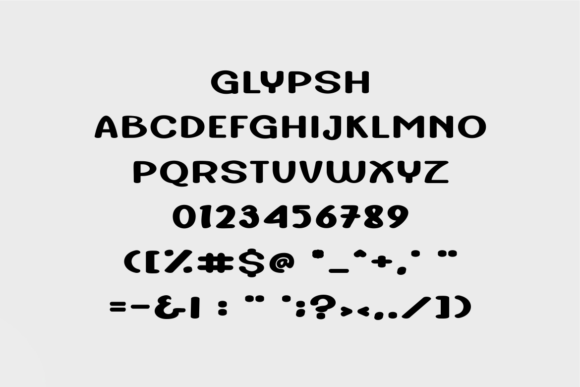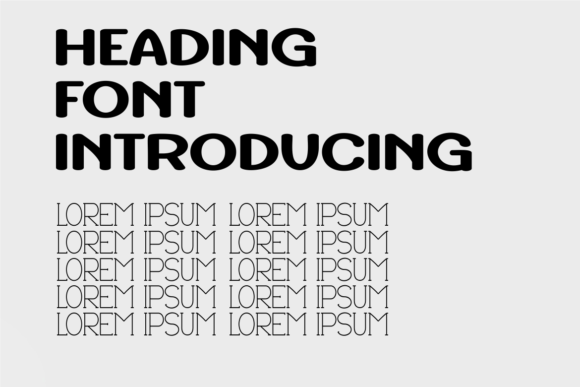
Introducing El Caster Font: Elevate Your Design with a Touch of Elegance
When it comes to setting the tone for a project, product introduction, or company vision, the right font can make all the difference. This is where El Caster Font comes into play – a sophisticated and elegant typeface designed specifically for headings, titles, and short phrases. In this article, we’ll dive into the world of El Caster Font, exploring its unique features, uses, and benefits for designers and crafters.
What is El Caster Font?
El Caster Font is a carefully crafted typeface intended for use at the top of a project, product introduction paper, or any other design element that requires a touch of sophistication. This font is perfect for short phrases, motivational words, company vision and mission statements, and titles – essentially, any text that needs to make a strong first impression.
Characteristics of El Caster Font
So, what sets El Caster Font apart from other typefaces? Here are a few key characteristics:
- Elegant and Sophisticated: El Caster Font boasts a sleek and refined design, perfect for creating a luxurious feel in your designs.
- Versatile: This font is suitable for a wide range of design applications, from corporate branding to personal projects.
- High-Impact: With its bold and eye-catching design, El Caster Font is guaranteed to grab attention and leave a lasting impression.
Using El Caster Font in Your Designs
Now that we’ve covered the basics of El Caster Font, let’s explore some creative ways to use it in your designs:
1. Company Vision and Mission Statements
El Caster Font is perfect for showcasing your company’s vision and mission statements. Its elegant design and bold presence make it an excellent choice for conveying your brand’s values and goals.
2. Product Introduction Papers
When introducing a new product, you want to make a strong first impression. El Caster Font can help you achieve this with its sophisticated and high-impact design.
3. Motivational Quotes and Taglines
Add a touch of inspiration to your designs with El Caster Font. This font is ideal for showcasing motivational quotes, taglines, or any other short phrase that needs to make an impact.
Tips for Getting the Most Out of El Caster Font
To get the most out of El Caster Font, here are a few tips to keep in mind:
- Use it sparingly: El Caster Font is designed for short phrases and headings, so use it sparingly to maximize its impact.
- Experiment with colors: Try pairing El Caster Font with different colors to create a unique and eye-catching design.
- Mix and match: Combine El Caster Font with other fonts to create a visually appealing contrast.
In conclusion, El Caster Font is a powerful tool for designers and crafters looking to elevate their designs with a touch of elegance. With its sophisticated design, versatility, and high-impact presence, this font is perfect for a wide range of applications. So why not get creative and use El Caster Font to create something outstanding?
Whether you’re a seasoned designer or just starting out, El Caster Font is an excellent addition to your typography toolkit. So go ahead, experiment with this beautiful font, and see the difference it can make in your designs!